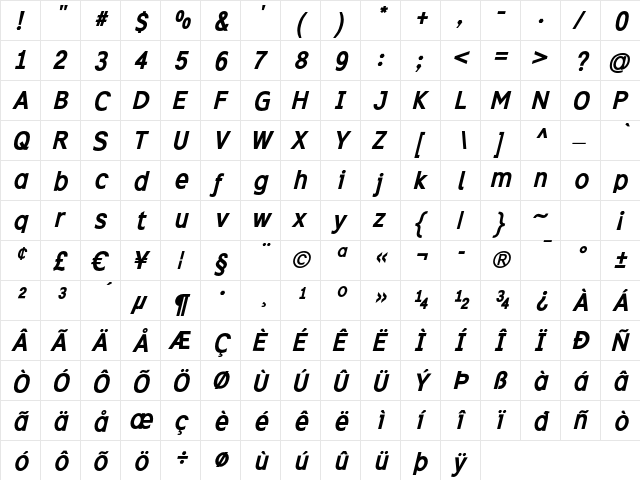
Excite Bold Italic
| Foundry | Keith Bates, K-Type |
| Designer | Keith Bates, K-Type |
Design Context for Excite Typeface
Excite takes a measured approach to typography — its balanced proportions and neutral character make it a reliable workhorse for both digital and print work. The slanted form adds forward momentum and visual energy. The heavy weight commands attention and anchors typographic hierarchies.
Pro Tip: Use Excite for emphasis, pull quotes, and subheadings where its slanted energy can add rhythm to the layout.